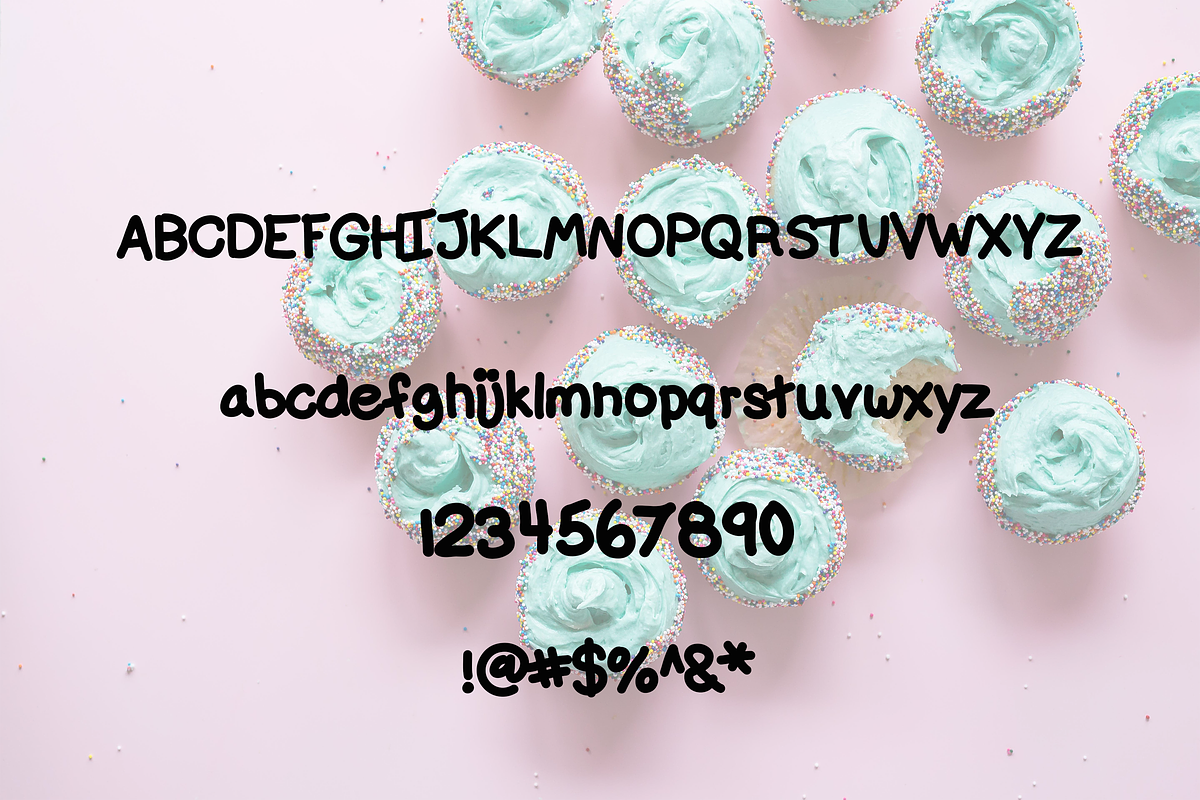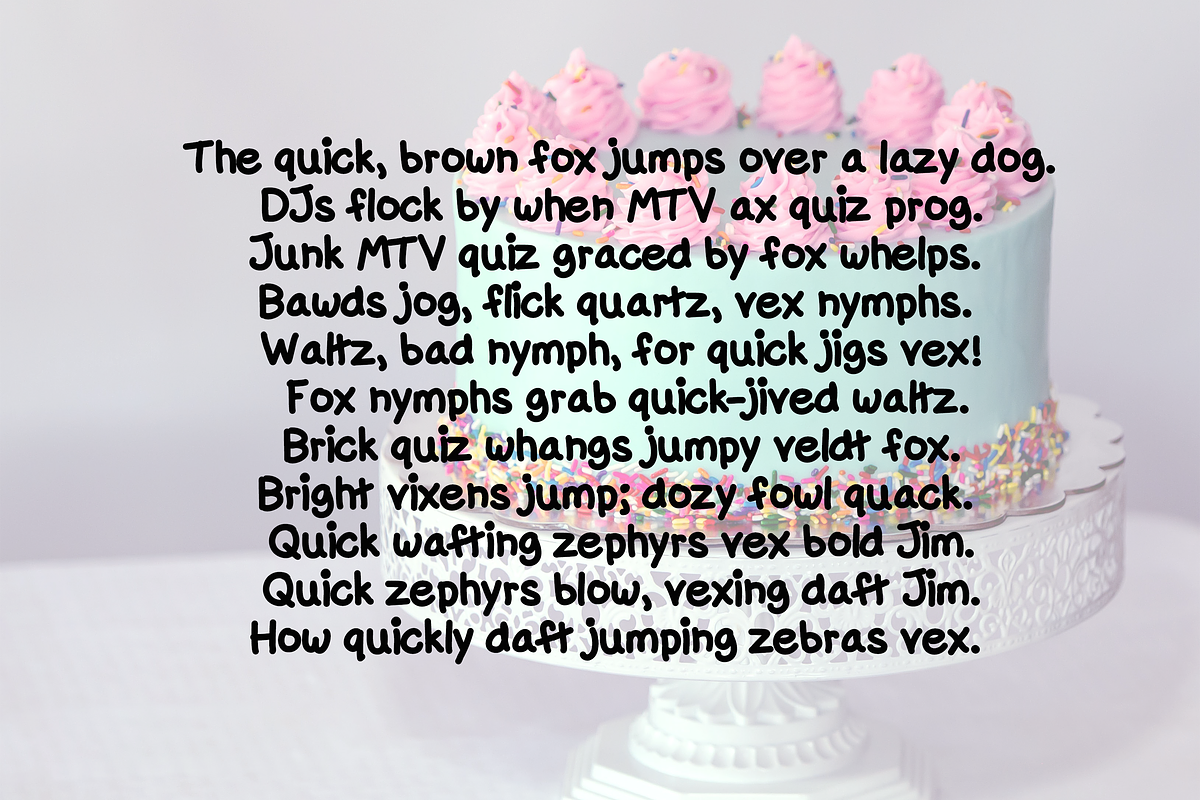
CAKE: A Fun, bubbly handwritten font
CAKE is a bubbly, fun handwritten font that includes a full set up upper and lower case letters, numerals, and a large set of punctuation